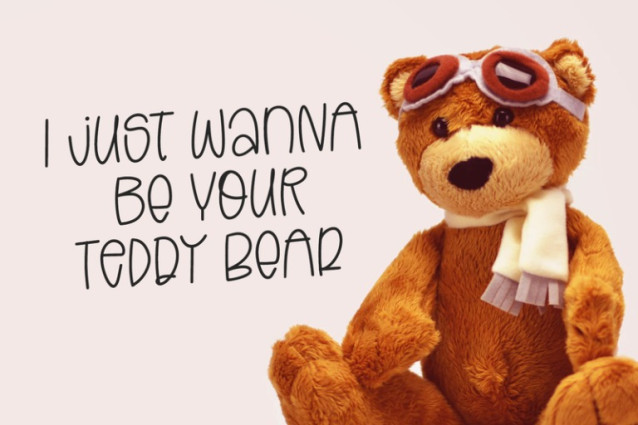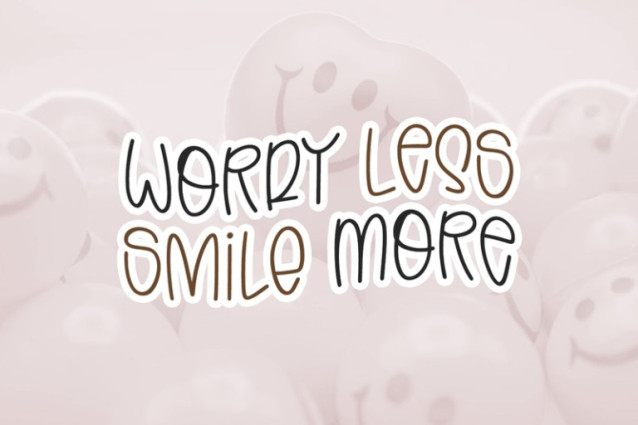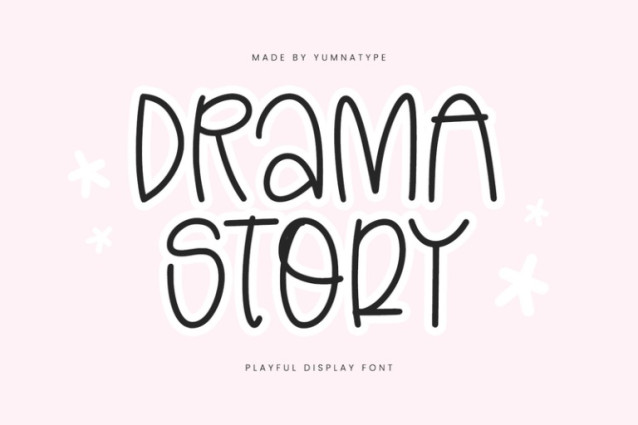
Drama Story Font
Drama Story Font, a captivating display font that brings your narratives to life. Drama Story captivates with its playful aesthetic and rounded forms, evoking a sense of adventure and imagination. Each letter is delicately crafted to maintain a sense of whimsy and intrigue, inviting viewers to dive into the unfolding tale.
With its thin weight and rounded shapes, Drama Story strikes the perfect balance between elegance and playfulness. Its slender strokes and soft curves add a sense of fluidity and grace to your text, while still maintaining readability and clarity. In addition, enjoy the features here.